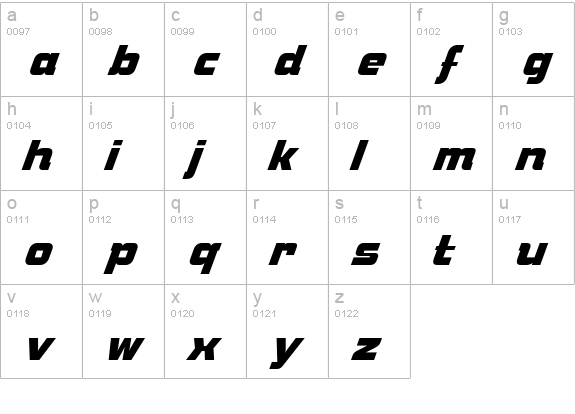
SuperMotherPlain Font Details
Introducing SuperMotherPlain - a stylish and versatile font that exudes elegance and sophistication. This font is perfect for a wide range of design projects, from branding to invitations and everything in between. With its clean lines and modern aesthetic, SuperMotherPlain is sure to make your text stand out. The best part? SuperMotherPlain is completely free to download at FontsMarket.com. That's right - you can access this incredible font at no cost, making it a must-have addition to your font collection. Don't miss out on the opportunity to elevate your designs with the timeless beauty of SuperMotherPlain. Download it today and unleash your creativity!